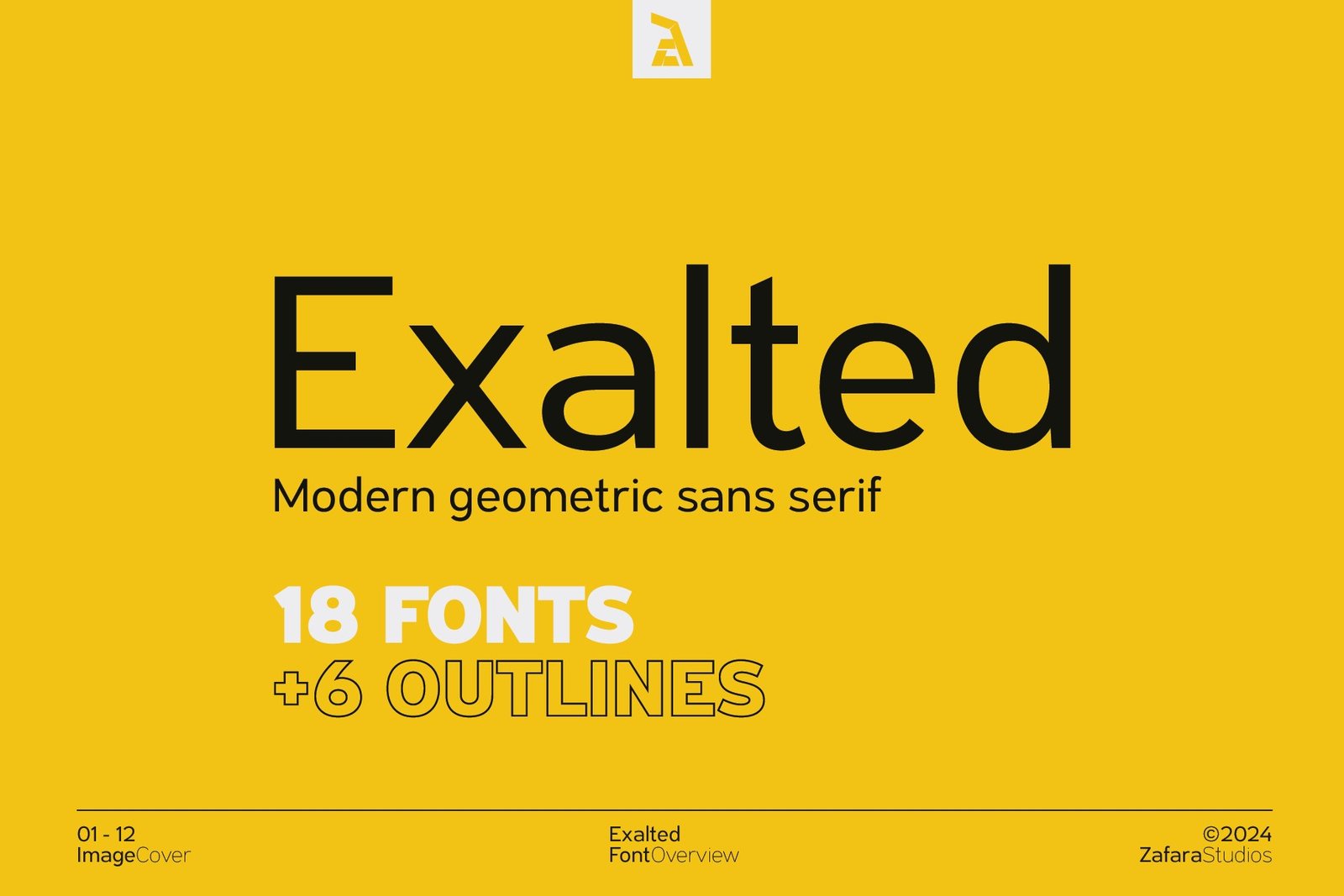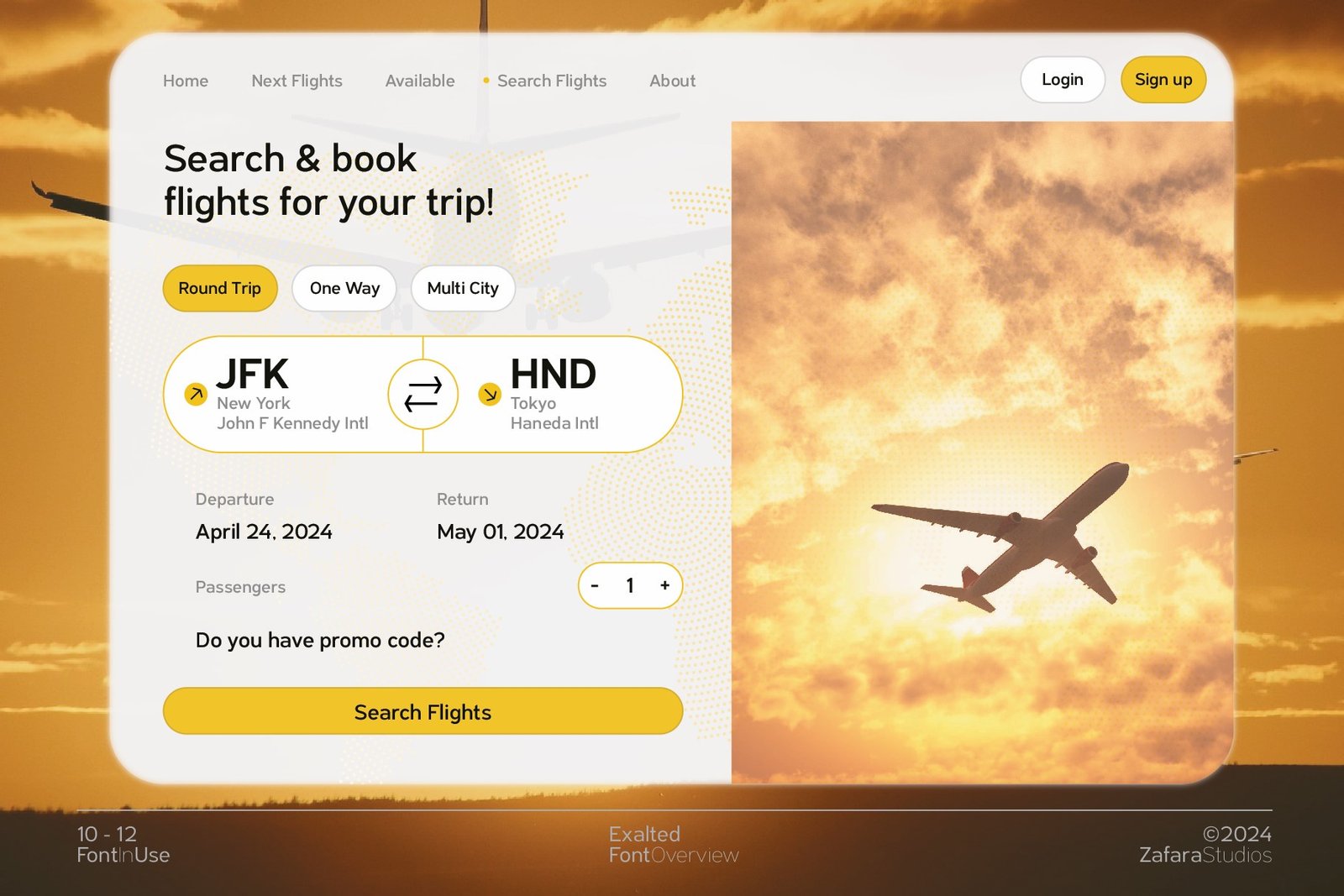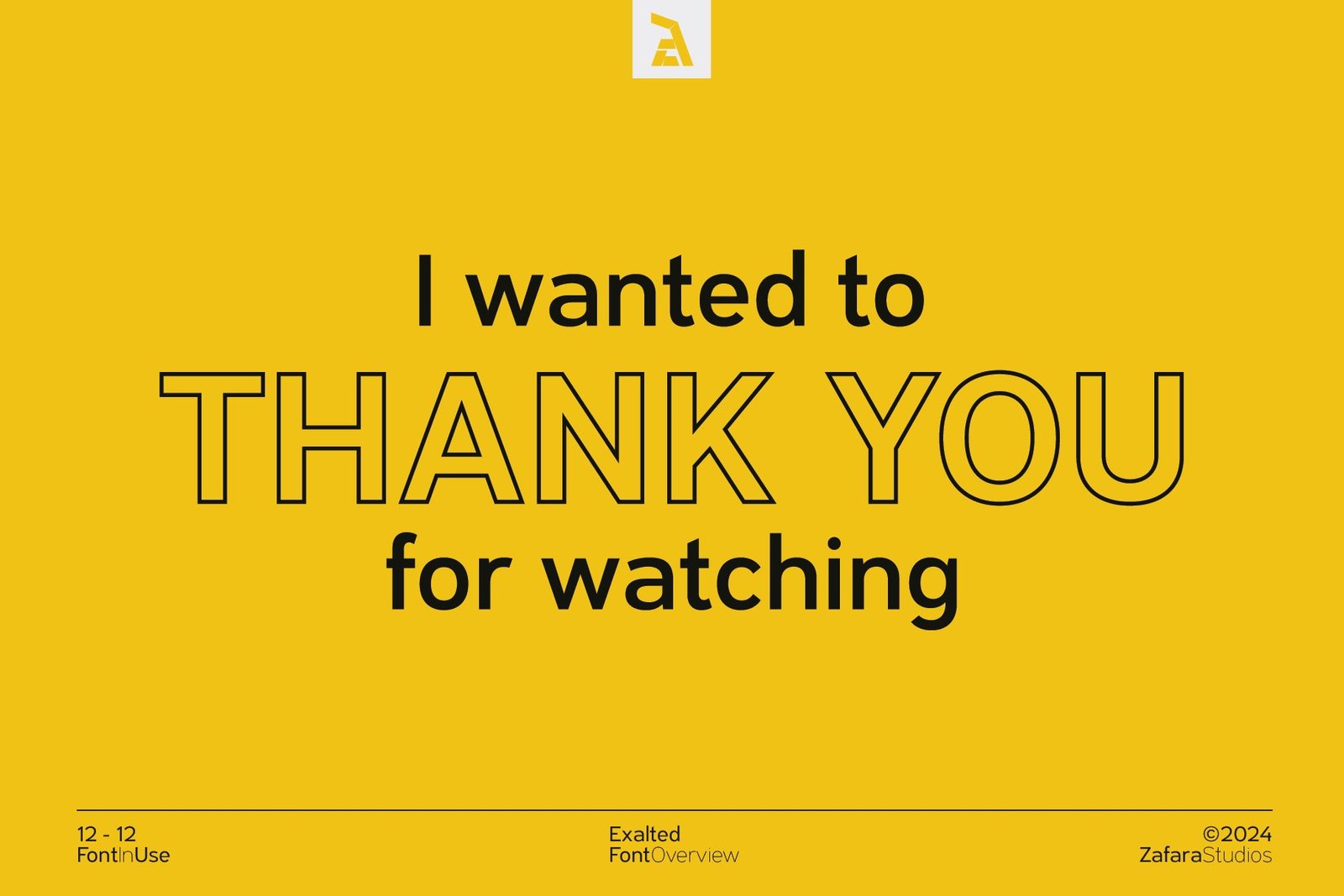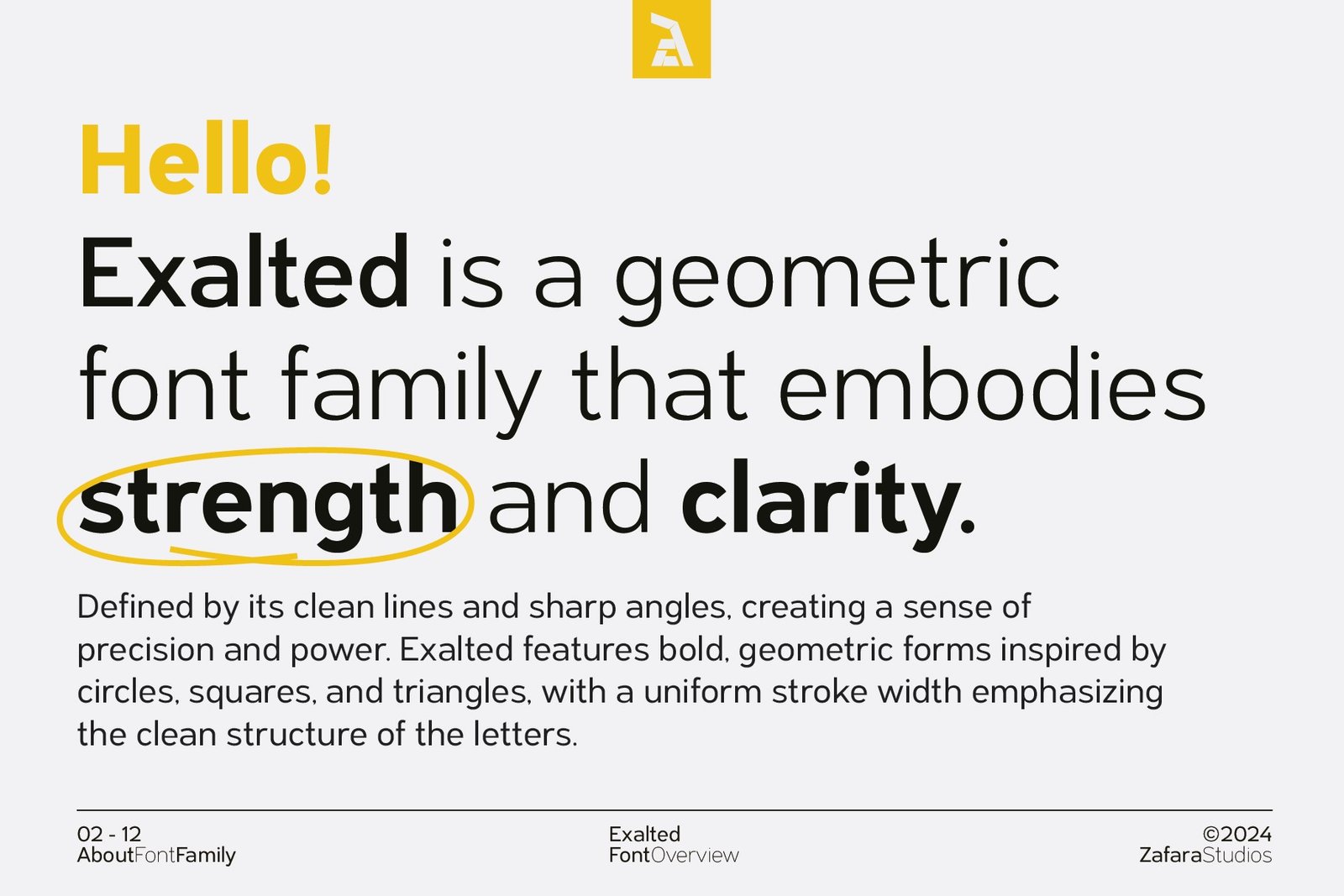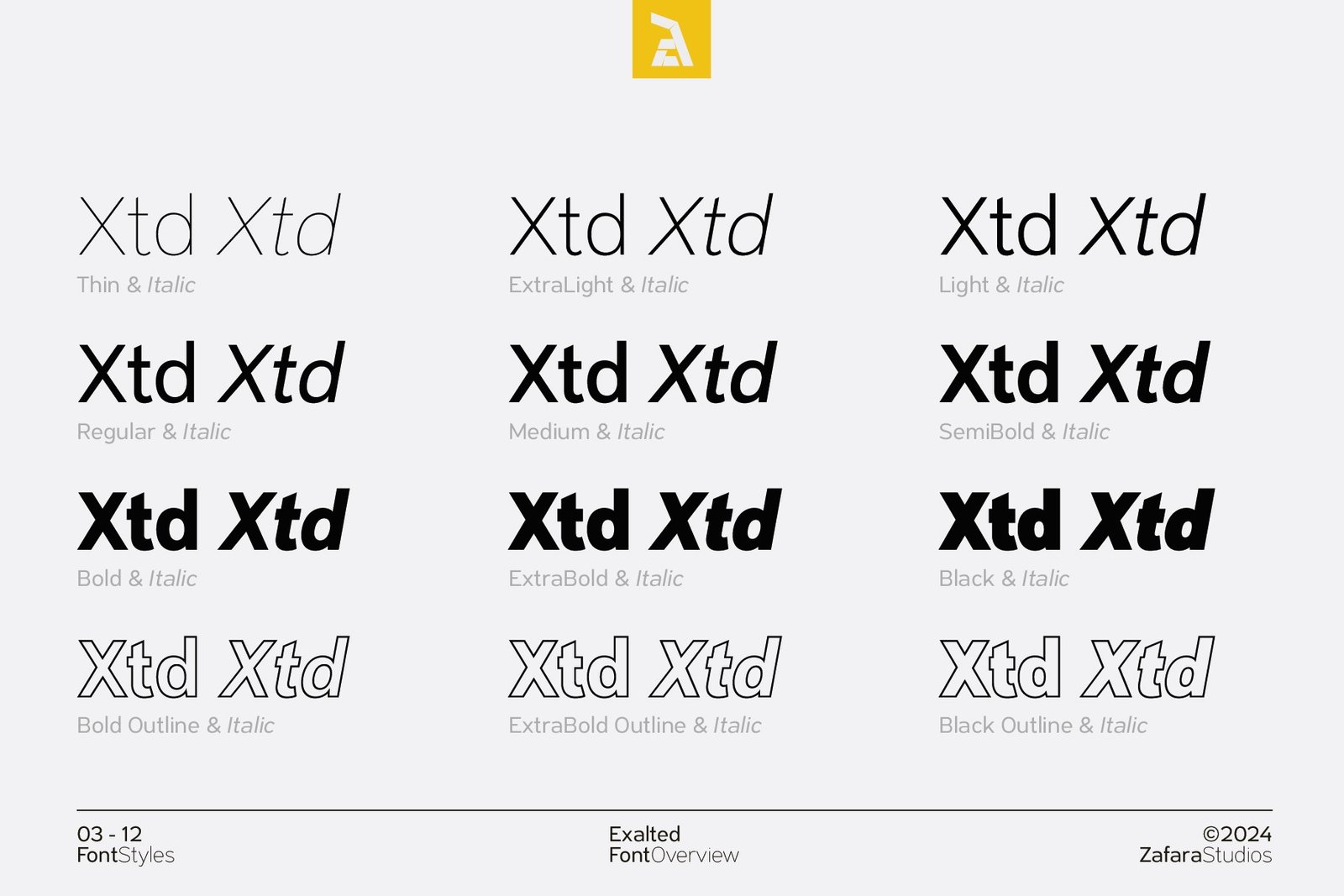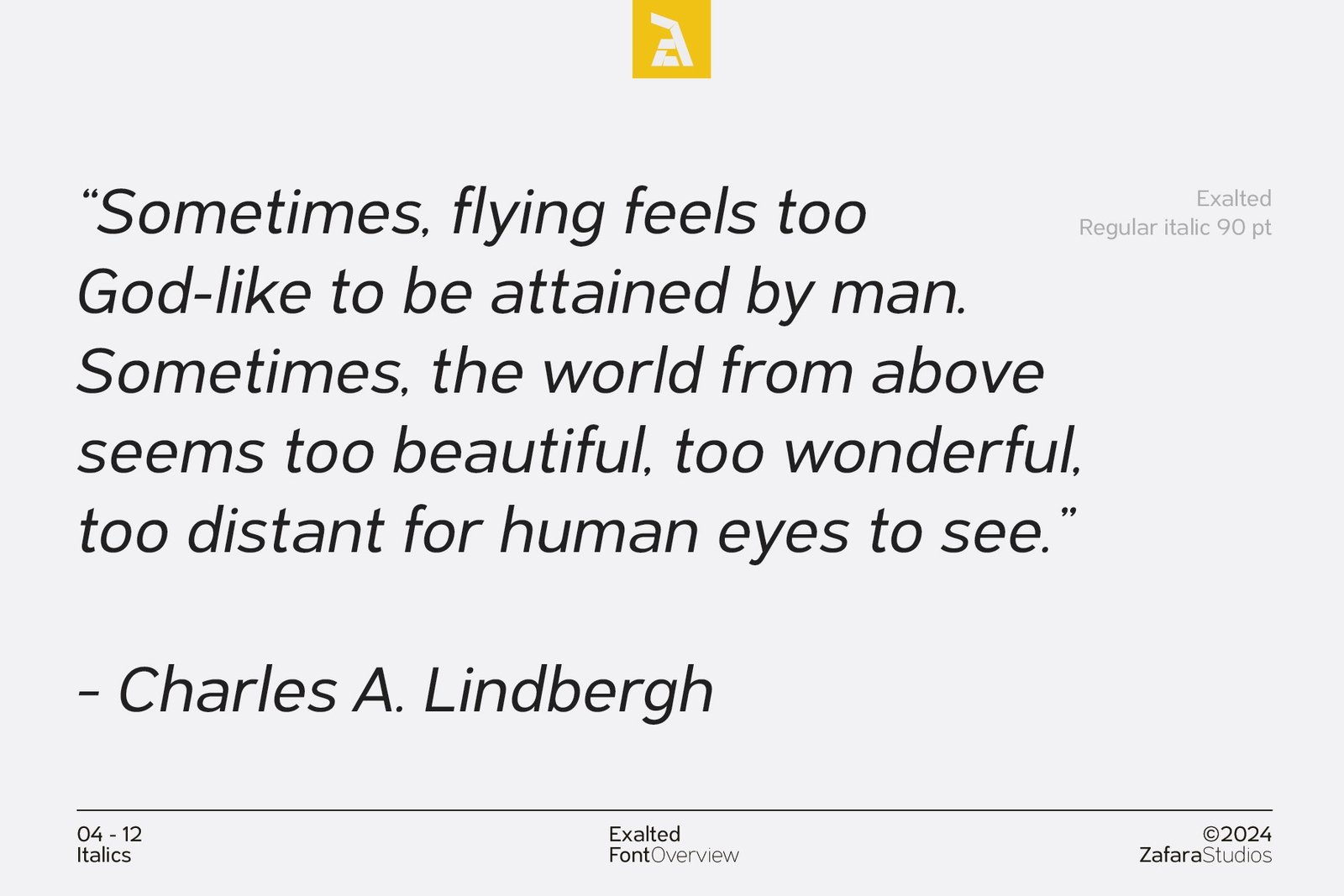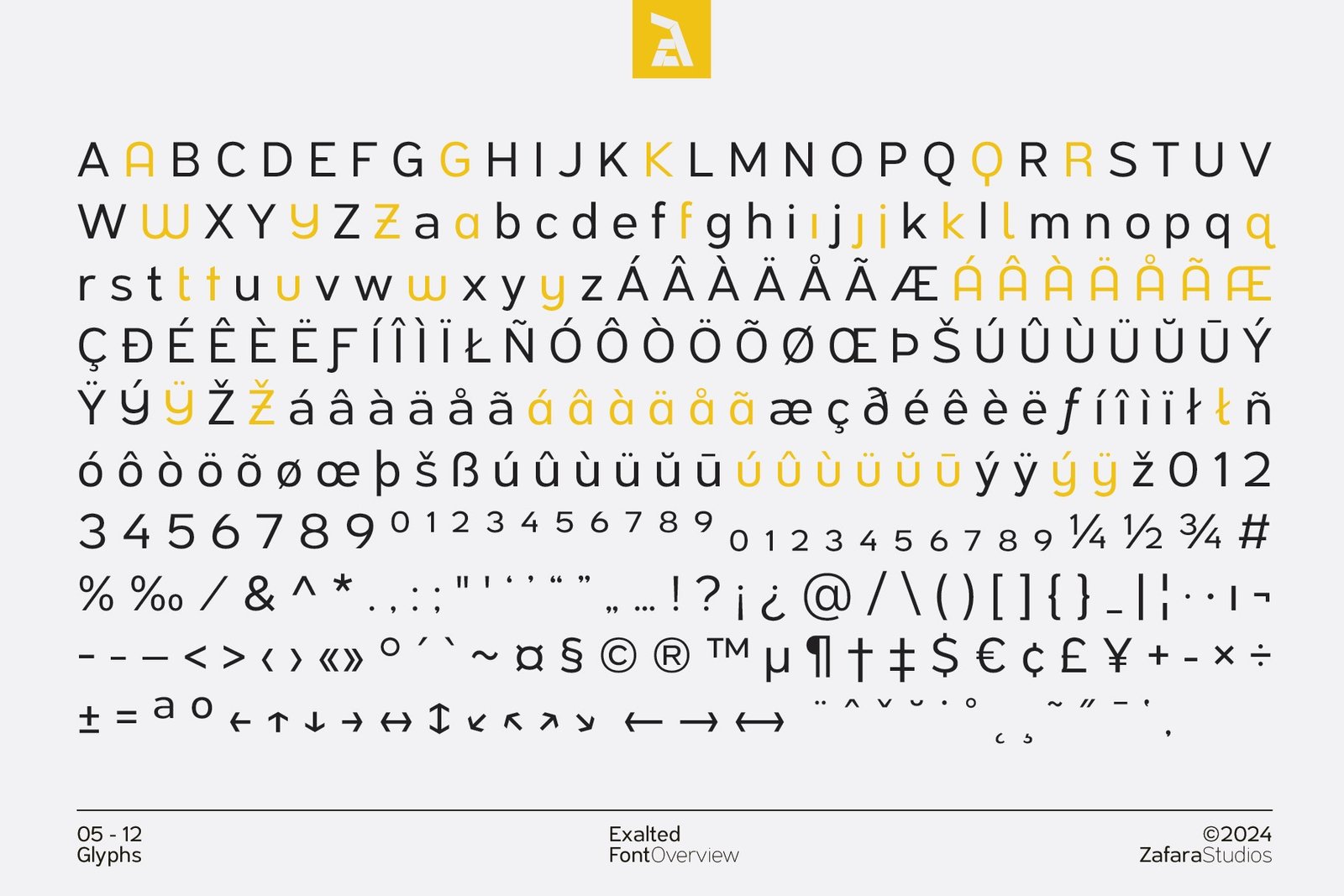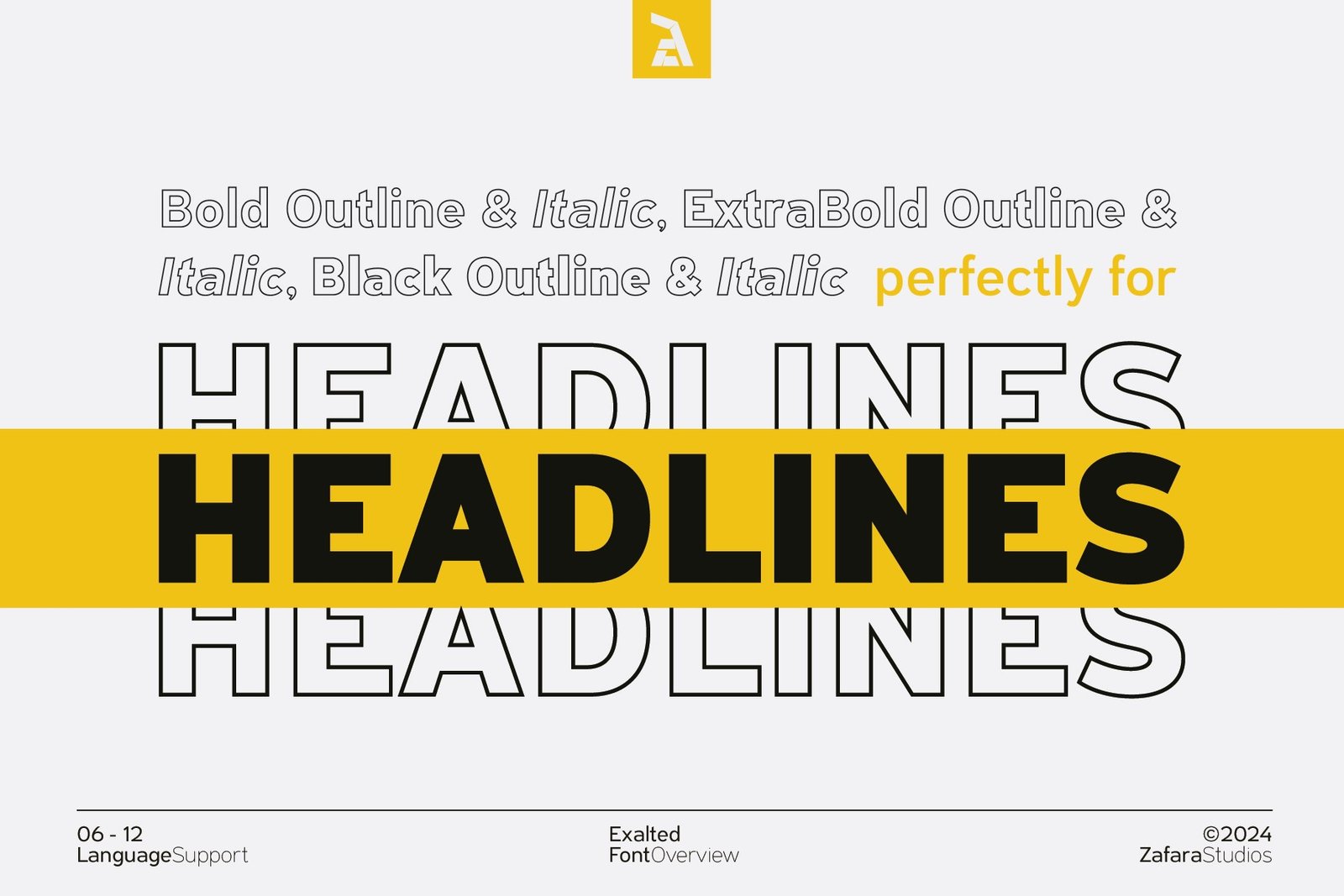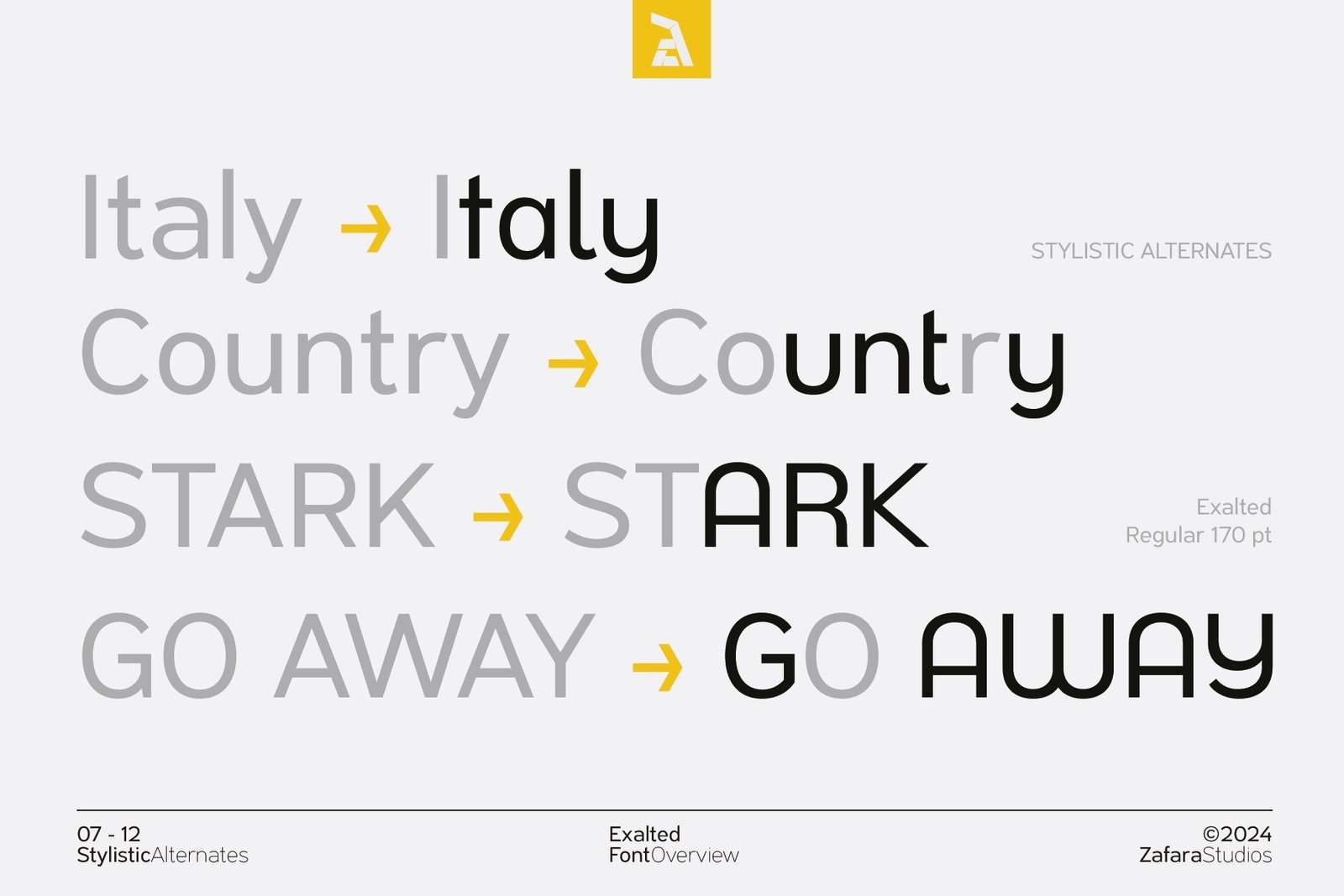
A full-screen yellow background with the word "Exalted" in a black, modern geometric sans serif font. Below, it reads "18 FONTS +6 OUTLINES."
A close-up of the Exalted font with the words "strength and clarity" highlighted, emphasizing the font's core design principles.
A complete overview of the Exalted font family's 18 styles, including various weights from Thin to Black, and their italic and outline versions.
A quote by Charles A. Lindbergh is shown in the Exalted font's Regular Italic style, demonstrating its elegant and readable slanted form.
A comprehensive display of the Exalted font's full glyph set, including all uppercase and lowercase letters, numbers, symbols, and multilingual characters.
The word "HEADLINES" is displayed in various Exalted font styles, including outline and solid versions, to show how it's perfect for headlines.
Examples of stylistic alternate letters in the Exalted font, showing how words like "Italy" and "Country" can be modified for unique typographic styles.
A mock-up magazine article from "FLIGHTMAGZ" using the Exalted font for the headlines and body text, showing its readability and application in print.
A travel poster with the headline "YOUR GATEWAY to ADVENTURE" in Exalted font, combining solid and italic styles over an airport runway photo.
A modern flight booking website UI mockup using the Exalted font for all text fields, headings, and buttons, showcasing its use in digital design.
Examples of aviation-related words and numbers like "Takeoff," "Passenger," and "Gates 1-15" using various styles of the Exalted font.